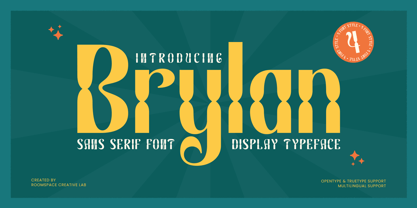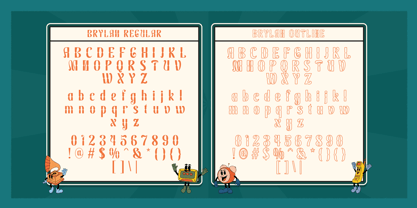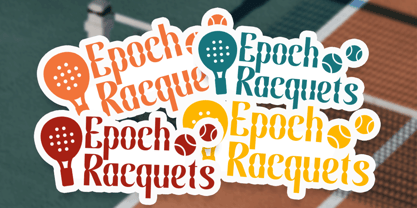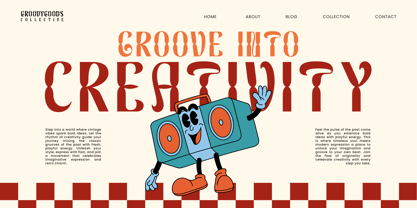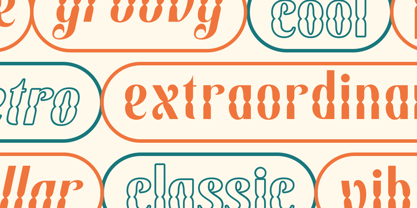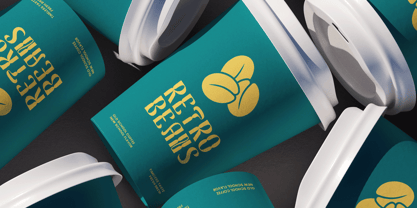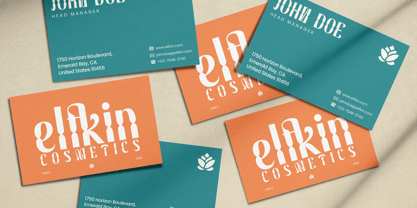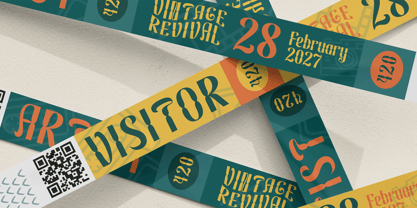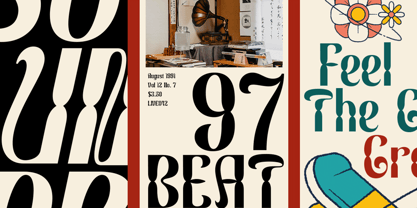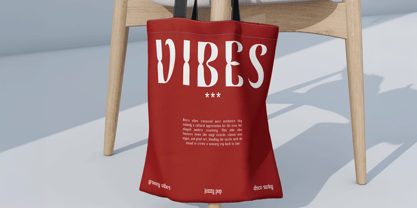
Brylan
The Brylan Font Family was designed by Bakhrudin Ja'far and published by Jafar07. Brylan contains 4 styles and family package options. More about this family
Brylan – Retro Display Sans Typeface A bold geometric sans that fuses retro personality with modern balance. Brylan is a retro-inspired display sans typeface built with geometric precision and bold visual rhythm. Its sculptural forms recall vintage signage and modern editorial design ideal for branding, packaging, and display typography. With smooth kerning, multilingual coverage, and refined proportions, Brylan is a confident choice for designers who value both nostalgia and modernity.
A little from my personal design & background: My name is Bakhrudin Ja'far, I live in Malang, Indonesia. I am currently completing my degree in visual communication design and I have worked as a lettering artist and logo designer for many years. I finally started my studio called roocspace creative lab (jafar07) Studio a few months ago and with my team made my letters into typography.